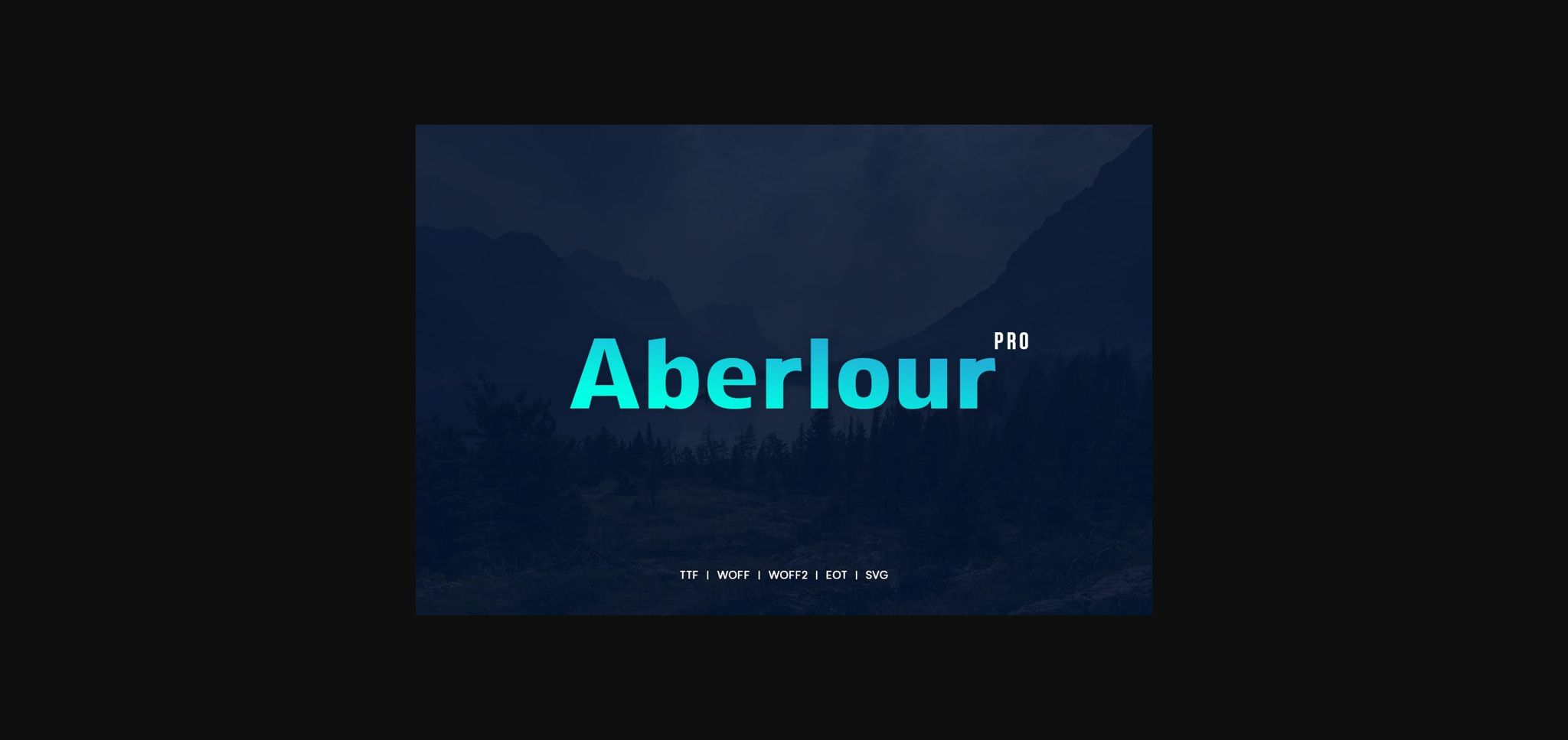
Aberlour Font
About Aberlour Font
Aberlour is a thick lettered sans serif font. Add this font to your favorite creative ideas and notice how it makes them stand out!